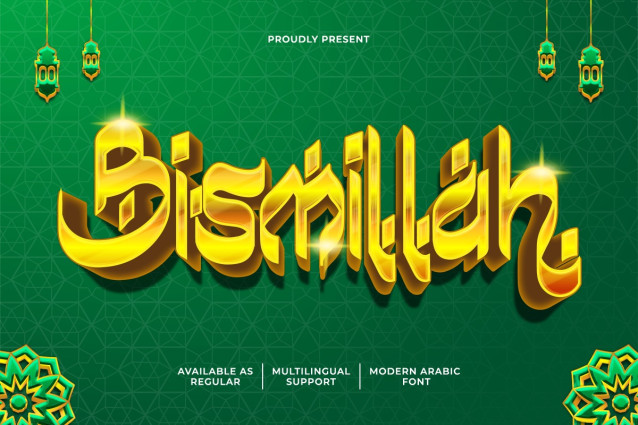
Bismillah Font
Bismillah Font is a modern Arabic Font that presents a unique and attractive decorative typographic appearance. This type of letter is a variation of decorative fonts that have the theme of Arabic shades. This nuance is presently completed with themes and ornaments that accompany him. Speaking of readability, Bismillah Modern Arabic Font is an eligible font. You have to see it carefully to understand it. This font was created to celebrate various celebration parties. This font can use as a poster and banner at events such as celebrations in Islam, such as the Ramadhan month, Eid al -Fitr, and others. Welcome banners and party-themed posters for the invitees. Large print banners with medium font size will also be the best choice when using this type of letter because it will attract everyone’s attention to the words you write using this font when entering the room. You can also use Bismillah Modern Arabic Font in other products such as; T-shirts, book covers, and branding. This font is suitable for all products with Arabic or Islamic themes. This font can also use as a marketing and packaging advertisement for food products. This font can also use as decoration in places offered by people, such as; Shopping malls, restaurants, and bars. Our display and decorative fonts collection are compatible with usage as; Figma fonts, Canva fonts, Freepik Fonts, and Adobe Fonts. They also work as Windows Fonts and Apple Fonts. For your social media needs, you can use and install fonts in our collection of display and decorative fonts to use as Instagram Fonts, Facebook Fonts, and Twitter Fonts.